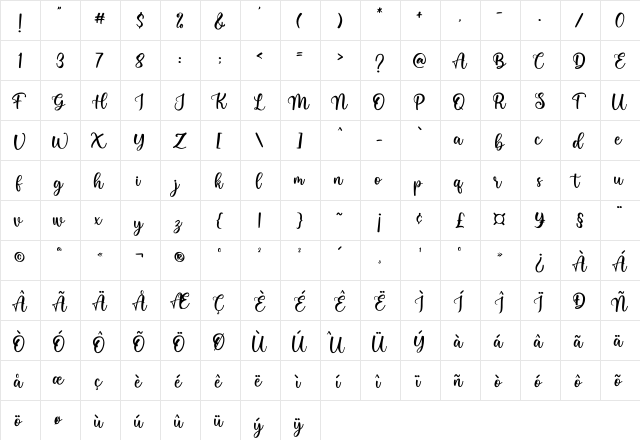
Lovely Melody Regular
Design Context for Lovely Melody Typeface
Lovely Melody is a composed and adaptable typeface that performs quietly and consistently across a wide range of design contexts.